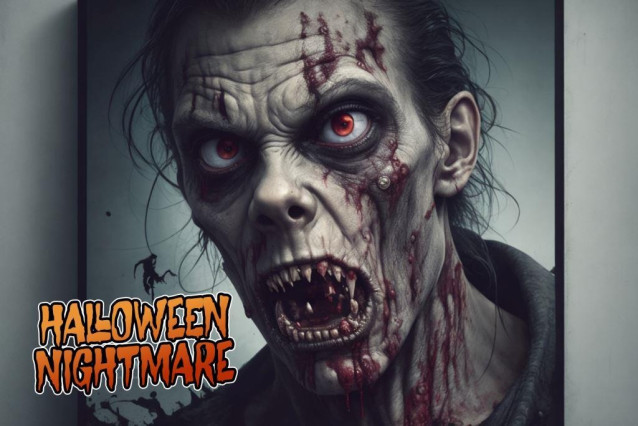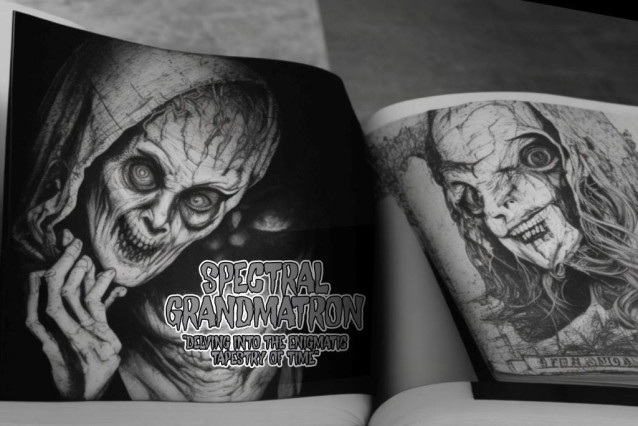
Mystique Darkness Font
Mystique Darkness Font is a font that exudes an aura of darkness and tension, perfect for creating captivating horror decorations in your home. Its unique and frightening design adds the perfect touch of mystery to Halloween text in presentations, generating a compelling and chilling atmosphere. Suitable for horror art projects, eerie memes, and creative business cards, Mystique Darkness radiates captivating characters with a dark thematic essence. This font is also an excellent choice for various digital needs, including horror-themed YouTube video titles, spooky store signs, film posters, and horror merchandise design. With its ability to establish a strong identity in diverse contexts, Mystique Darkness is the ideal option for horror company logos, websites, comics, event banners, games, and horror magazines. With the presence of Mystique Darkness, you can bring forth a captivating atmosphere, inviting viewers to explore the world of darkness with unforgettable intrigue and fear.